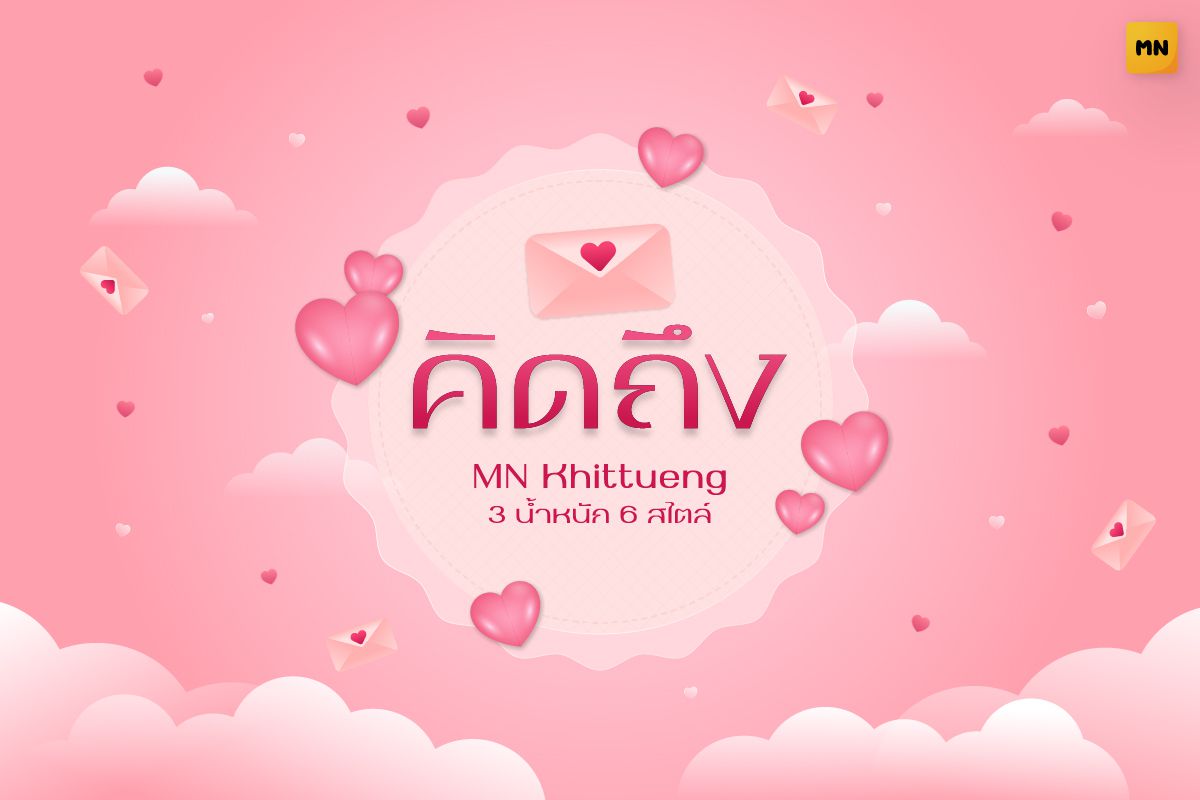
MN Khitthueng Italic
A soft and rounded Thai sans-serif font with a romantic touch. Its smooth lines and gentle shapes make it perfect for love messages, greeting cards, and heartfelt designs.